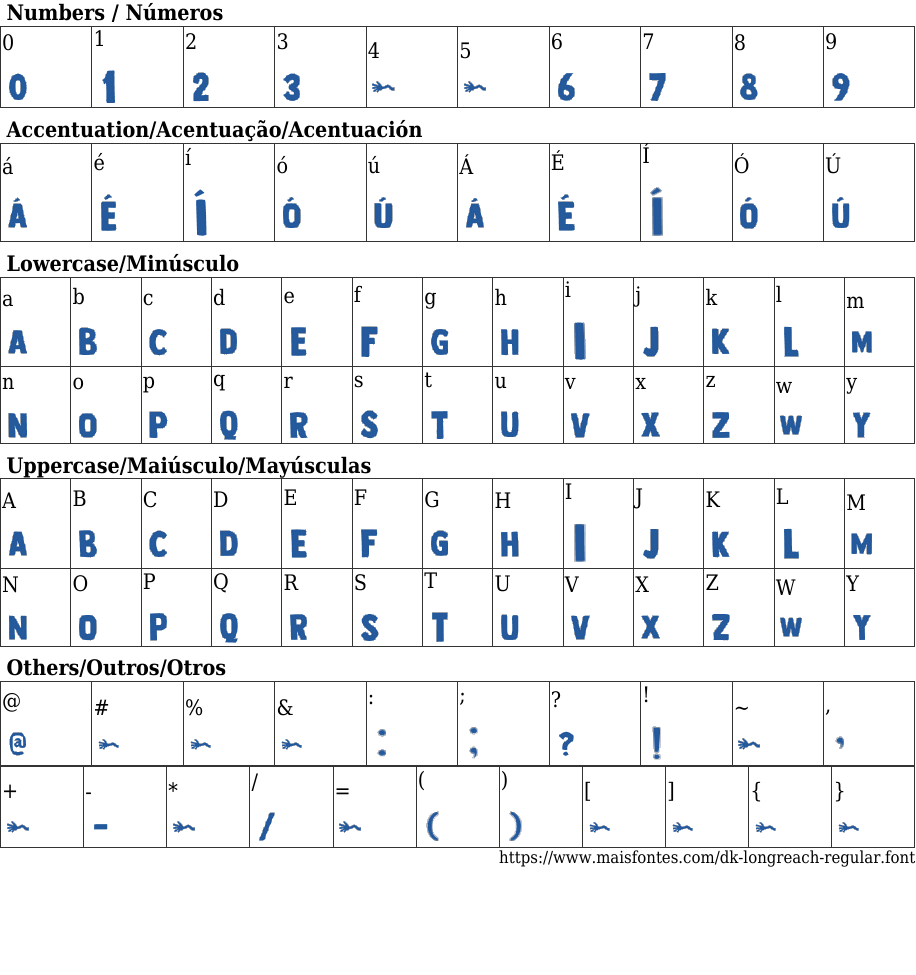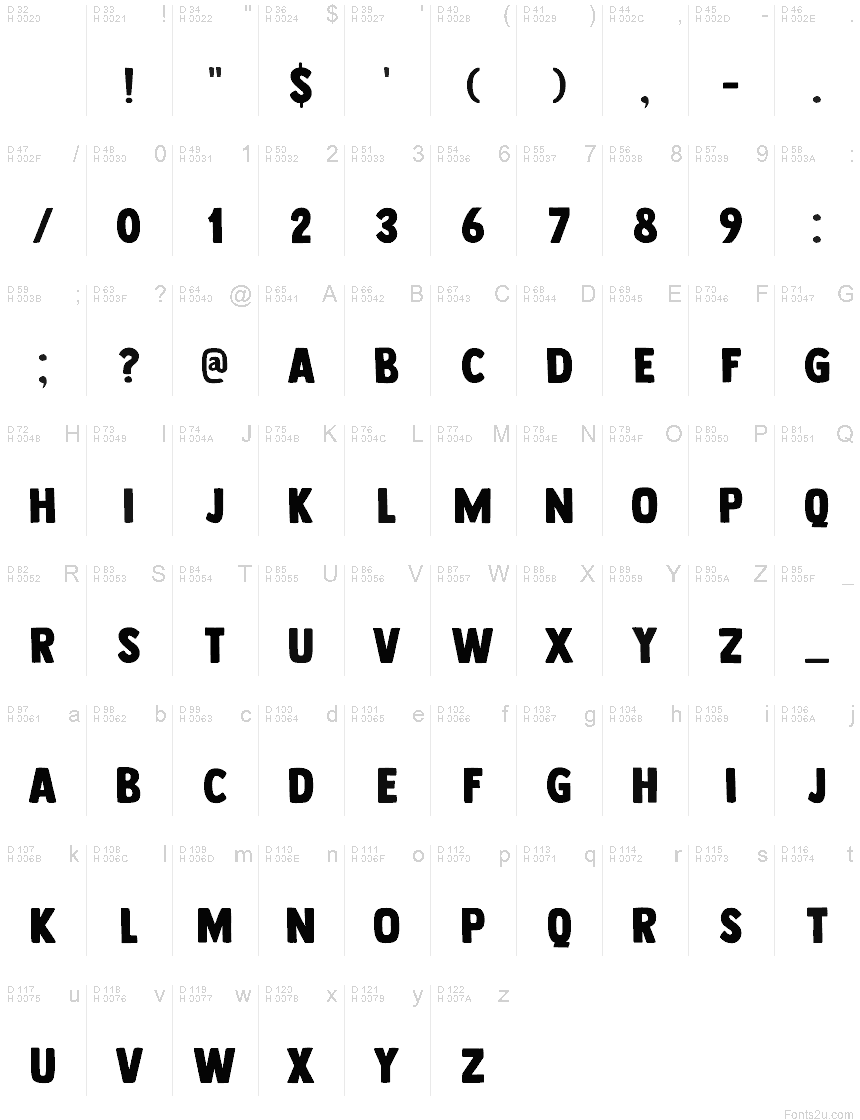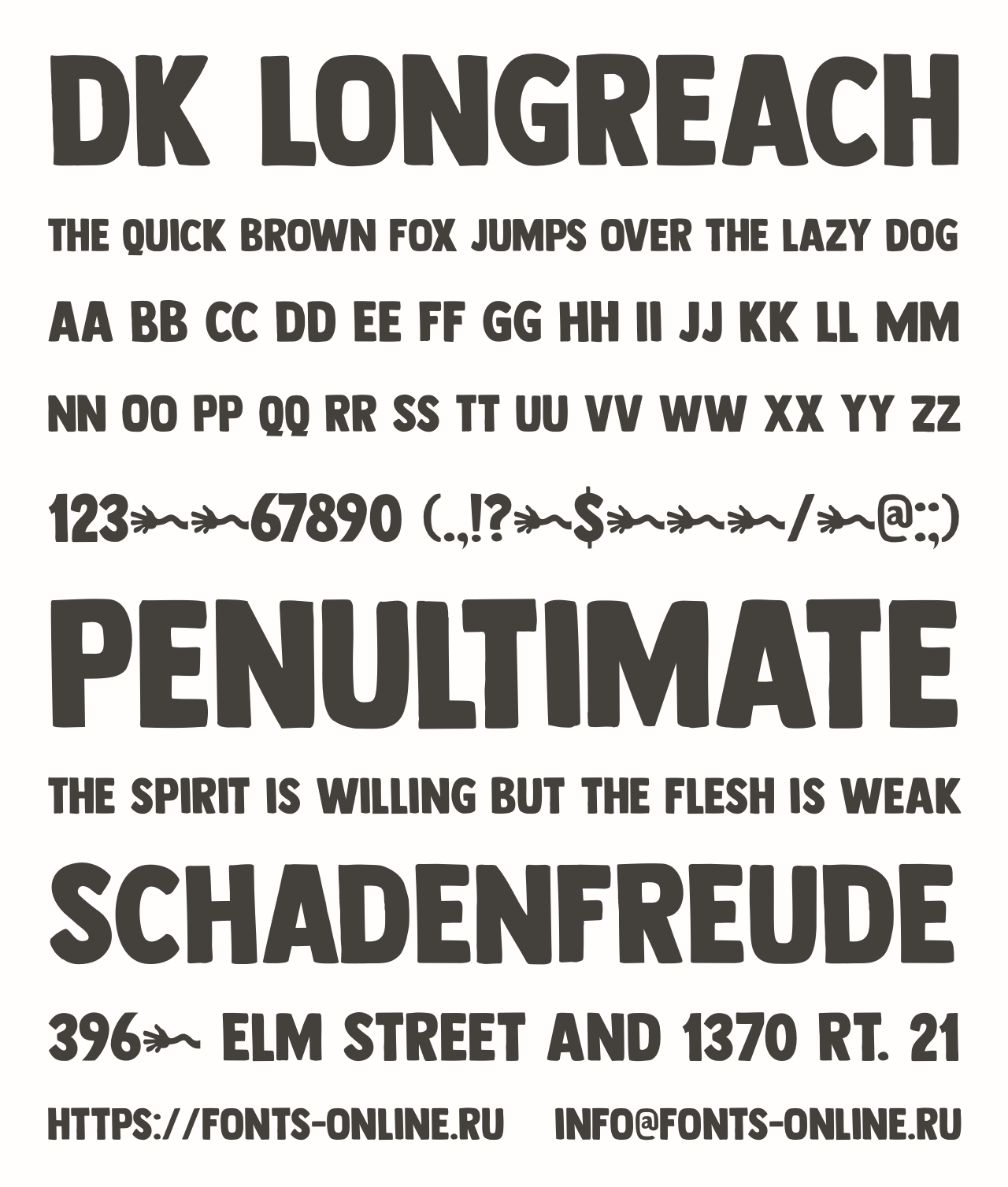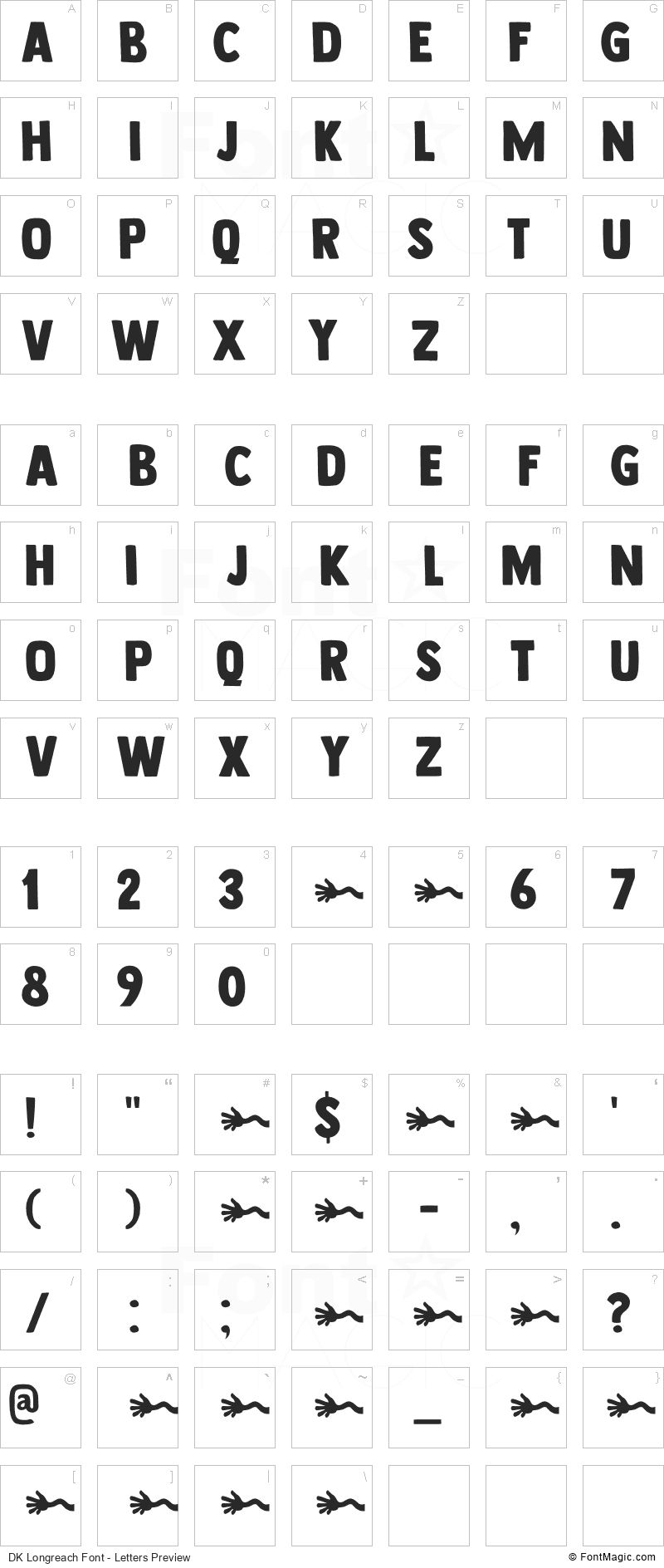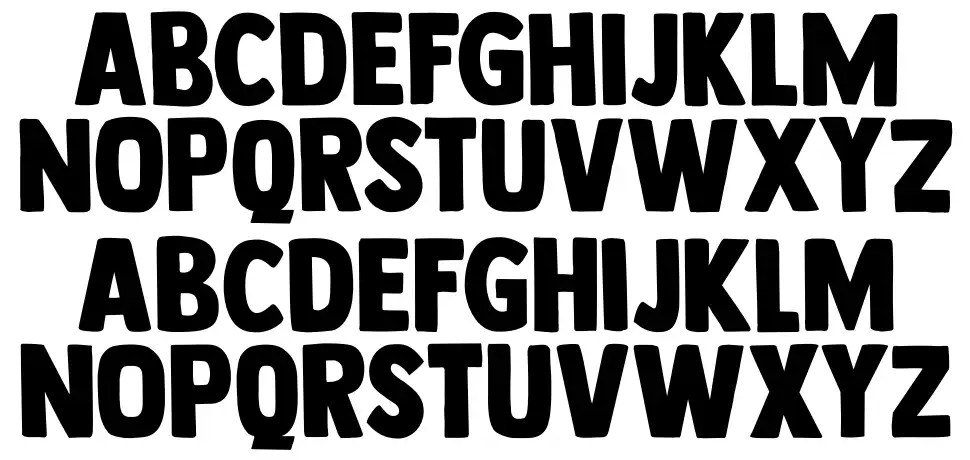
Longreach Regular Font . It is free for personal use only. Longreach is a carefully crafted, handmade all caps display font. The dk longreach regular font contains 137 beautifully designed characters. Free download of dk longreach font. The glyphs are nice and crisp, with slightly rounded corners. If you are going to use it commercially, buy the full version, which comes with kerning, embedding rights, all. If you are going to use it commercially, buy the full. This is the demo, bare bones, version of longreach. It is free for personal use only. If you are going to use it commercially, buy the full. This is the demo, bare bones, version of longreach. It is free for personal use only. This is the demo, bare bones, version of longreach. ️ customize your own preview on ffonts.net to make sure it`s the right one for your designs. Released in 2018 by david kerkhoff and.
A great choice for highlighting your design elements. This is the demo, bare bones, version of longreach. It is free for personal use only. This is the demo, bare bones, version of longreach. It is free for personal use only. If you are going to use it commercially, buy the full version, which comes with kerning, embedding rights, all. Longreach is a carefully crafted, handmade all caps display font. This is the demo, bare bones, version of longreach. ️ customize your own preview on ffonts.net to make sure it`s the right one for your designs. The dk longreach regular font contains 137 beautifully designed characters.
Longreach Regular Font Longreach is a carefully crafted, handmade all caps display font. Longreach is a carefully crafted, handmade all caps display font. The glyphs are nice and crisp, with slightly rounded corners. The dk longreach regular font contains 137 beautifully designed characters. Released in 2018 by david kerkhoff and. If you are going to use it commercially, buy the full. It is free for personal use only. Longreach regular font free download. This is the demo, bare bones, version of longreach. It is free for personal use only. If you are going to use it commercially, buy the full. This is the demo, bare bones, version of longreach. If you are going to use it commercially, buy the full version, which comes with kerning, embedding rights, all. It is free for personal use only. Free download of dk longreach font.
Longreach Font YouWorkForThem Longreach Regular Font Longreach regular font free download. This is the demo, bare bones, version of longreach. A great choice for highlighting your design elements. If you are going to use it commercially, buy the full version, which comes with kerning, embedding rights, all. It is free for personal use only. The dk longreach. Longreach Regular Font.
DK Longreach Regular font Longreach Regular Font It is free for personal use only. The glyphs are nice and crisp, with slightly rounded corners. It is free for personal use only. This is the demo, bare bones, version of longreach. It is free for personal use only. Longreach regular font free download. A great choice for highlighting your design elements. Released in 2018 by david kerkhoff and.. Longreach Regular Font.
Higher Reach Font Download Free for Desktop & font Longreach Regular Font The dk longreach regular font contains 137 beautifully designed characters. ️ customize your own preview on ffonts.net to make sure it`s the right one for your designs. A great choice for highlighting your design elements. Free download of dk longreach font. Released in 2018 by david kerkhoff and. The glyphs are nice and crisp, with slightly rounded corners. Longreach regular. Longreach Regular Font.
Fonts similar to Longreach Regular Font Longreach regular font free download. This is the demo, bare bones, version of longreach. Longreach is a carefully crafted, handmade all caps display font. If you are going to use it commercially, buy the full. The dk longreach regular font contains 137 beautifully designed characters. Released in 2018 by david kerkhoff and. ️ customize your own preview on ffonts.net to. Longreach Regular Font.
LONGREACH a groundbreaking elevated targeting capability BAE Systems Longreach Regular Font If you are going to use it commercially, buy the full. ️ customize your own preview on ffonts.net to make sure it`s the right one for your designs. The glyphs are nice and crisp, with slightly rounded corners. If you are going to use it commercially, buy the full. Free download of dk longreach font. This is the demo, bare. Longreach Regular Font.
"Longreach Australia Tag" Sticker by WaterClimber Redbubble Longreach Regular Font This is the demo, bare bones, version of longreach. Longreach is a carefully crafted, handmade all caps display font. It is free for personal use only. This is the demo, bare bones, version of longreach. It is free for personal use only. A great choice for highlighting your design elements. If you are going to use it commercially, buy the. Longreach Regular Font.
Longreach Font YouWorkForThem Longreach Regular Font This is the demo, bare bones, version of longreach. A great choice for highlighting your design elements. If you are going to use it commercially, buy the full. If you are going to use it commercially, buy the full version, which comes with kerning, embedding rights, all. ️ customize. Longreach Regular Font.
DK Longreach Font Longreach Regular Font The dk longreach regular font contains 137 beautifully designed characters. It is free for personal use only. If you are going to use it commercially, buy the full. Free download of dk longreach font. Longreach is a carefully crafted, handmade all caps display font. The glyphs are nice and crisp, with slightly rounded corners. It is free for personal use. Longreach Regular Font.